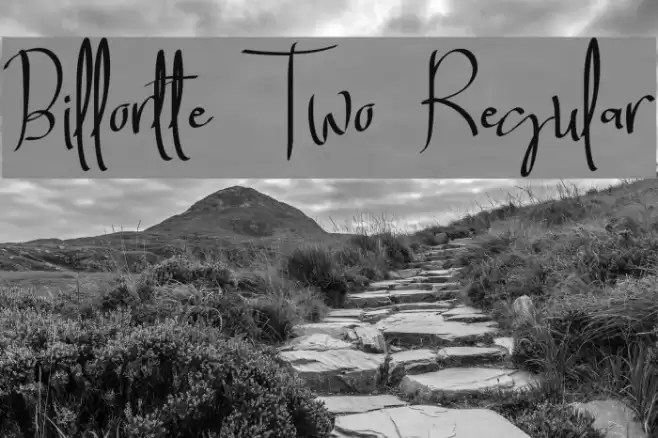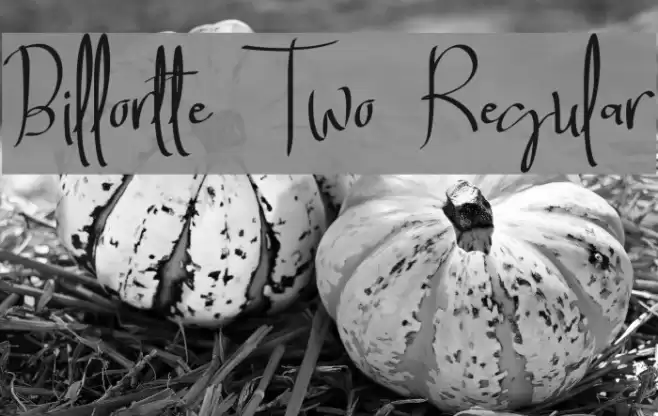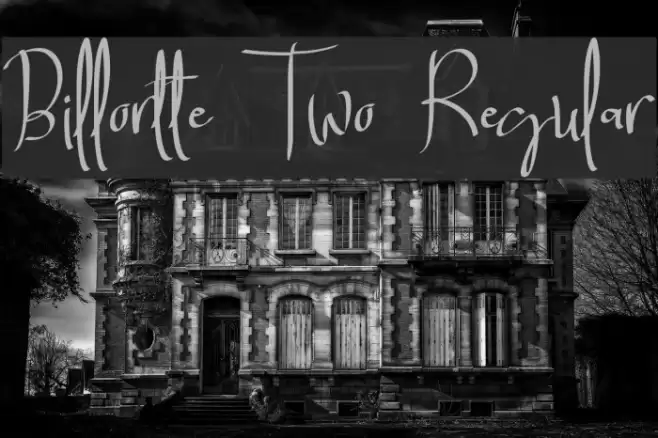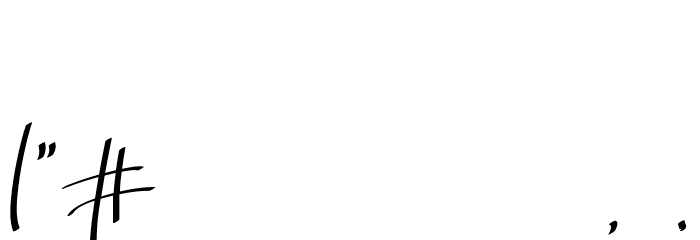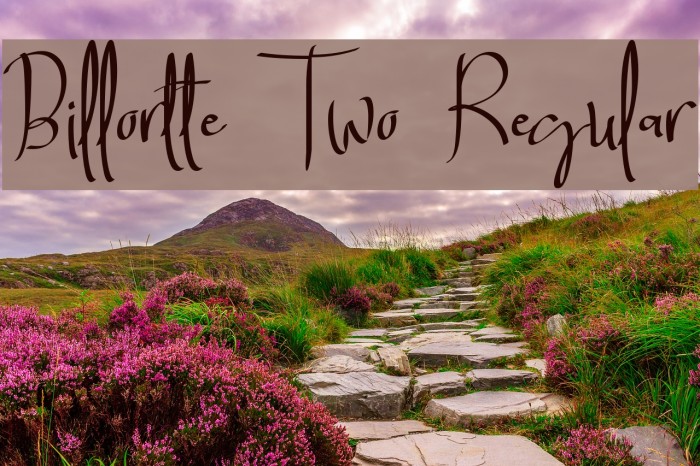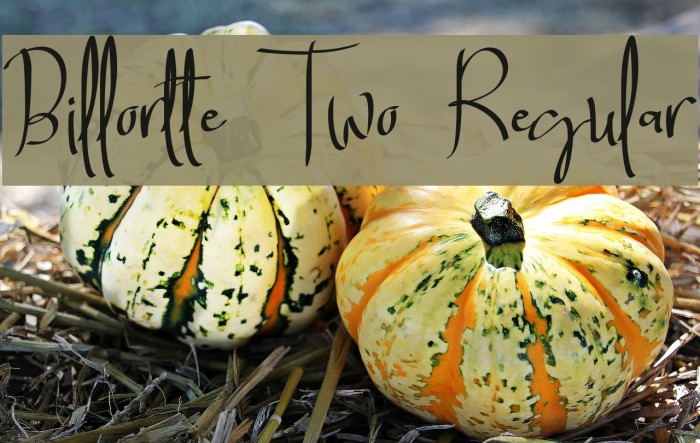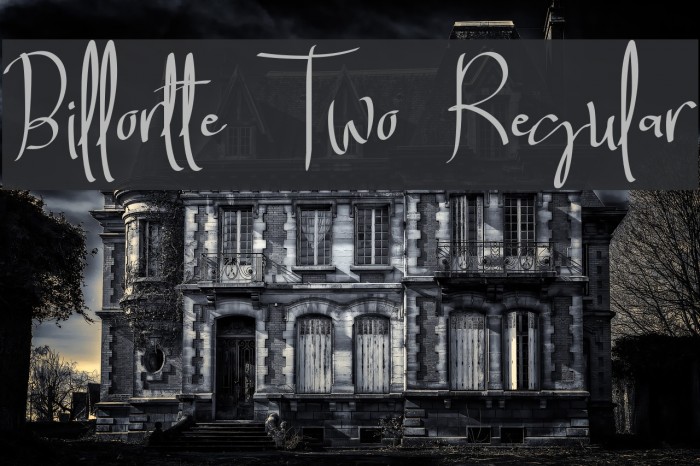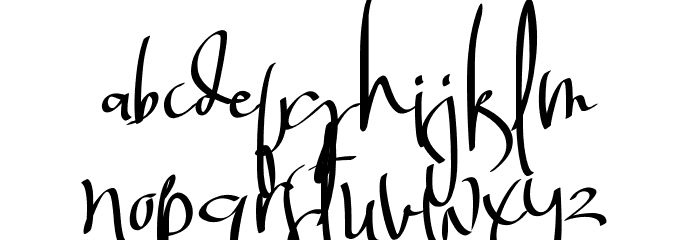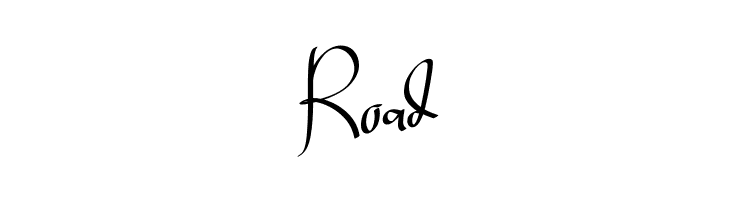
Billortte Two_Regular Font
Billortte Two_Regular Description
This font exhibits a dynamic and expressive style, characterized by its flowing, cursive script that mimics the fluidity of handwriting. The uppercase letters are tall and slender, with elegant loops and swirls that add a sense of movement and grace. The lowercase letters maintain a consistent style, with some characters featuring exaggerated ascenders and descenders, enhancing the font's artistic flair. The numbers and special characters are designed to complement the overall aesthetic, maintaining the same fluid and artistic quality. This font's unique style makes it suitable for creative and artistic projects where a personal touch is desired.
A dynamic, cursive script font with flowing, expressive characters from Uncategorized fonts.
- Proposed Projects: Ideal for invitations, greeting cards, branding, and artistic projects requiring a personal touch.
- Use Case: Logos, Invitations, Artistic projects